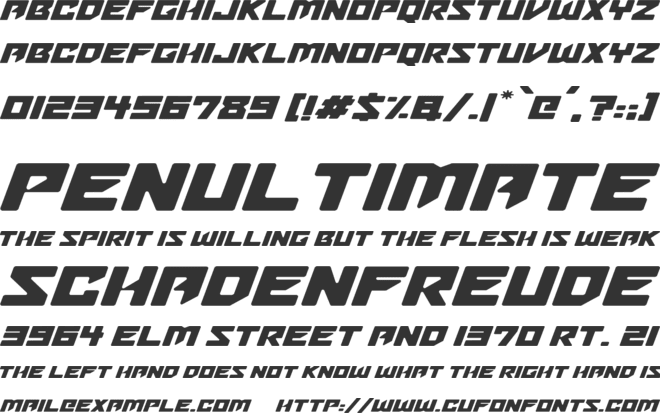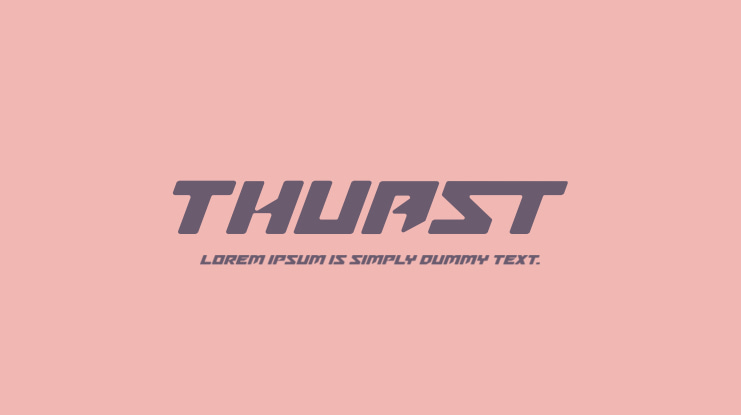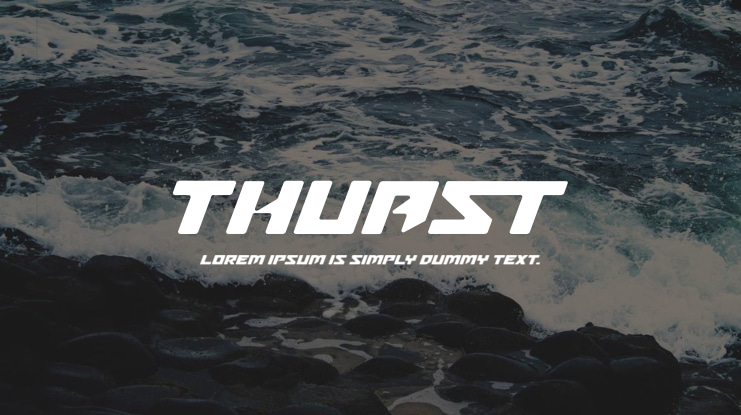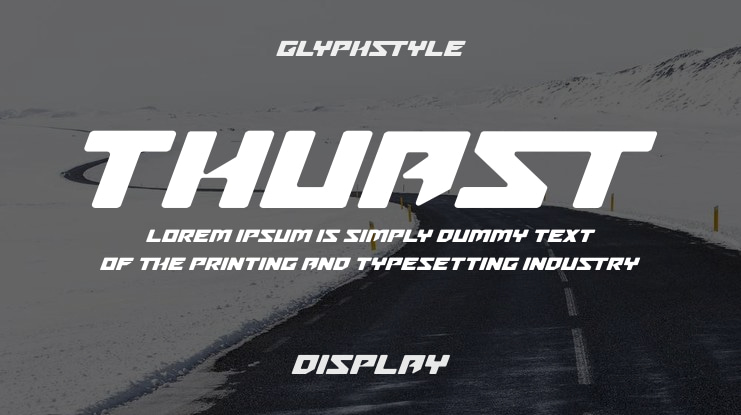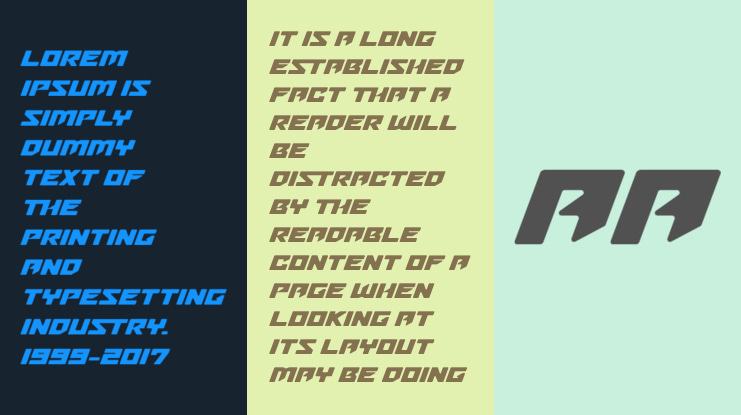
Thuast Font
Thuast is a display font with a sports and speed theme. The bold and italic letters are designed to convey a sense of speed. This font also offers various stylistic options to enhance your creativity.